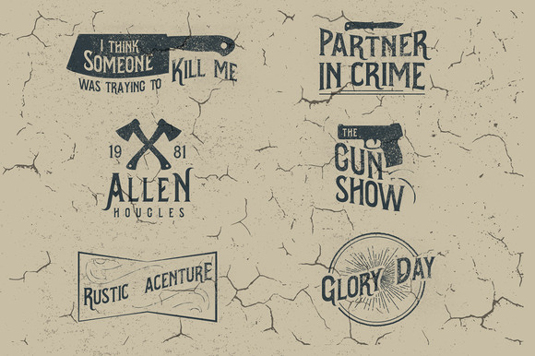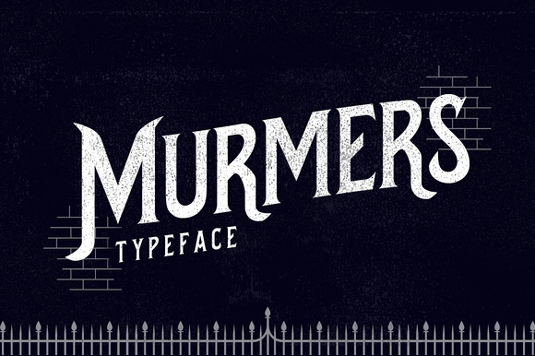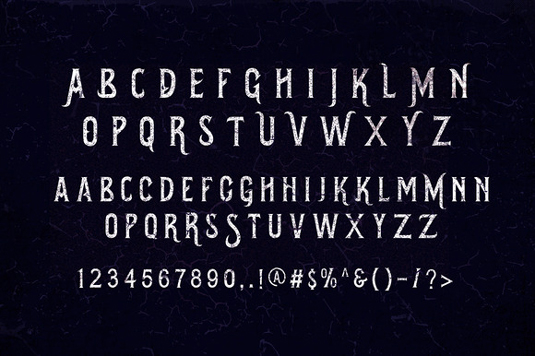
Font of the day: Murmers
Murmers by Panji Nugraha
Inspired by old thriller and crime movies, serif typeface Murmers was created by designer Panji Nugraha. A brilliant vintage-style design, Murmers is great for creating eye-catching posters, headlines and much more.